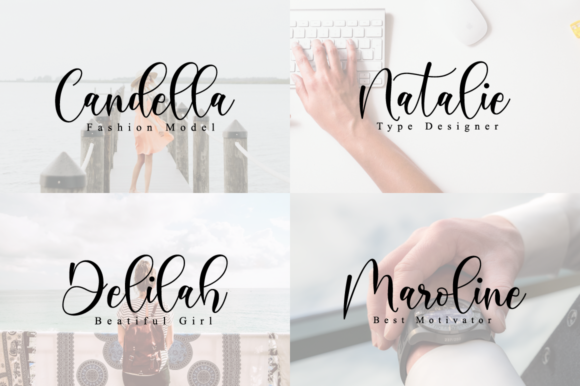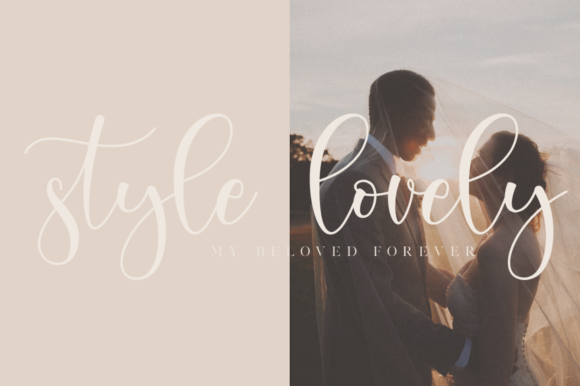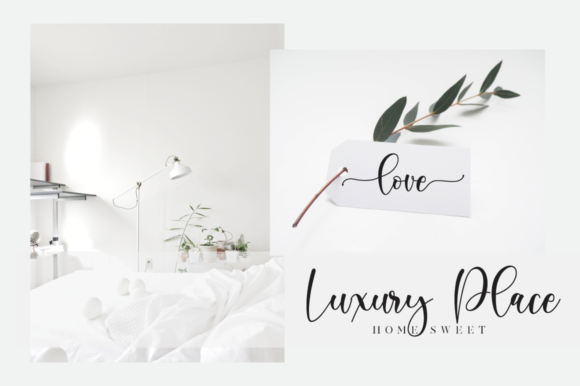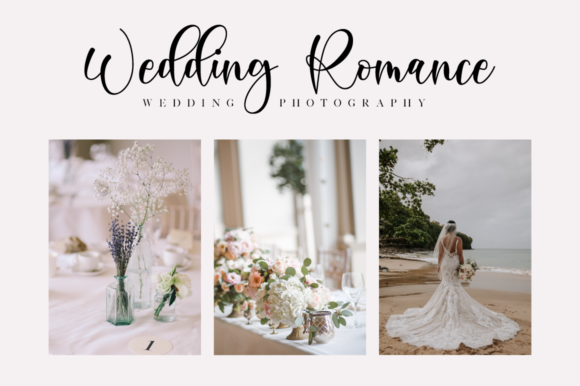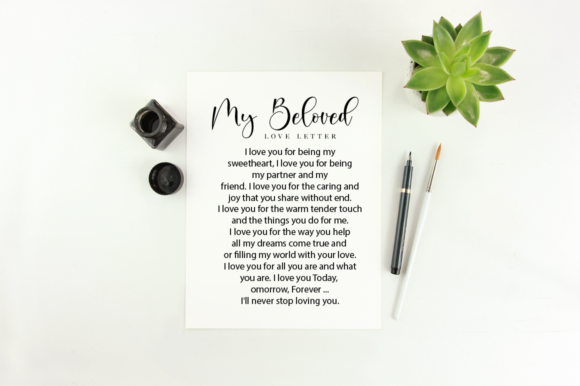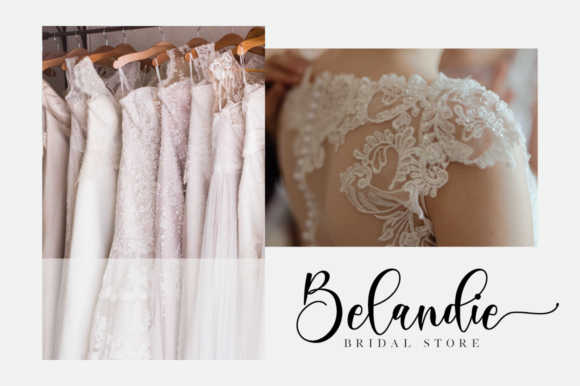
Introduction to Boshela Script Font
Boshela is a beautiful script font with a classy, elegant, and modern look.
Get inspired by its authentic vibe .
Key Features of Boshela Script Font